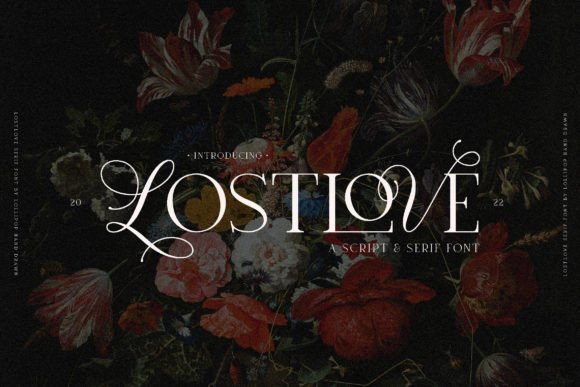
Are you looking for the perfect font to add a touch of elegance and luxury to your wedding invitations? Look no further than Lost Love Font. This stylish and sophisticated serif font is sure to impress and elevate your designs to the next level.
Created by Lollipop Hand Drawn, Lost Love Font is a unique and eye-catching addition to any collection. Its elegant curves and delicate details make it the perfect choice for any feminine and modern project. Plus, with its versatile use, it's perfect for everything from invitations to logos and more.
Lost Love Font is the ideal choice for anyone looking to add a touch of class to their designs. Whether you're designing invitations for a wedding or a high-end event, this font is the perfect choice to make your designs stand out. So why settle for ordinary when you can have extraordinary with Lost Love Font?
In conclusion, Lost Love Font is a must-have for anyone looking to add a touch of luxury and sophistication to their designs. With its stylish and elegant design, it's the perfect choice for any project that requires a touch of class. So download Lost Love Font today and elevate your designs to the next level.